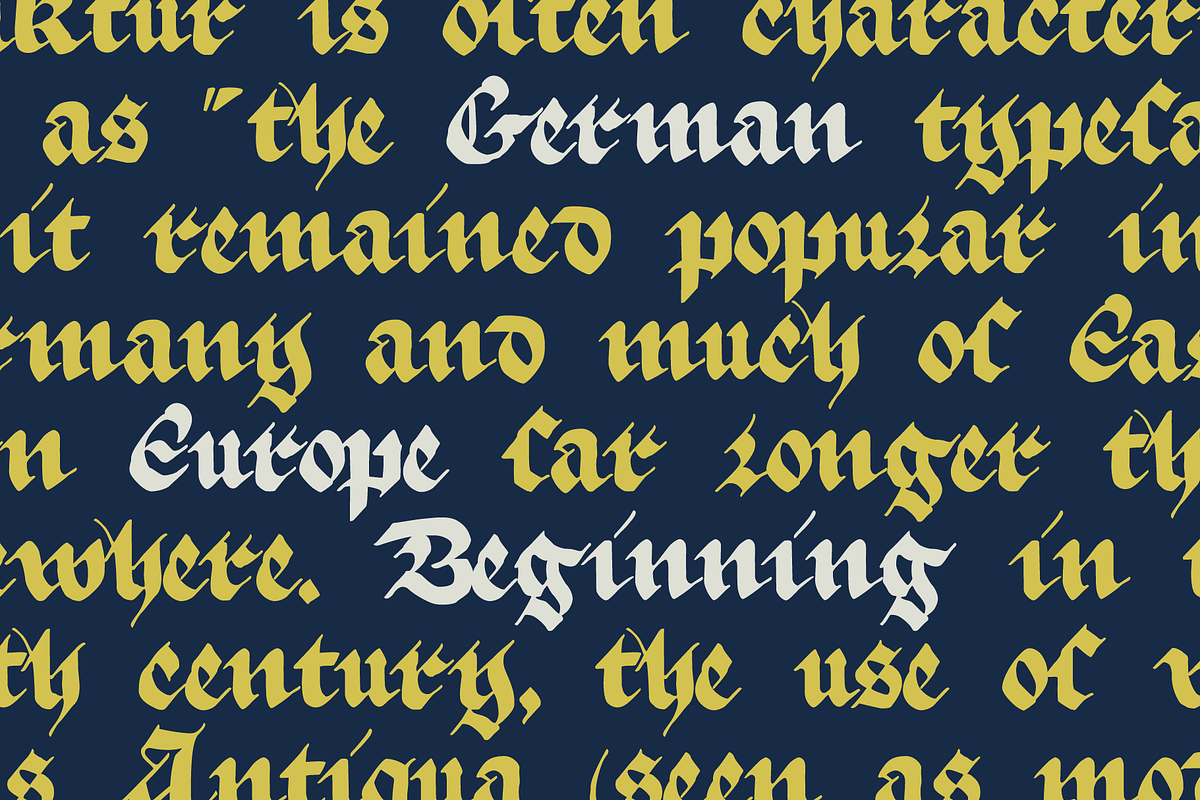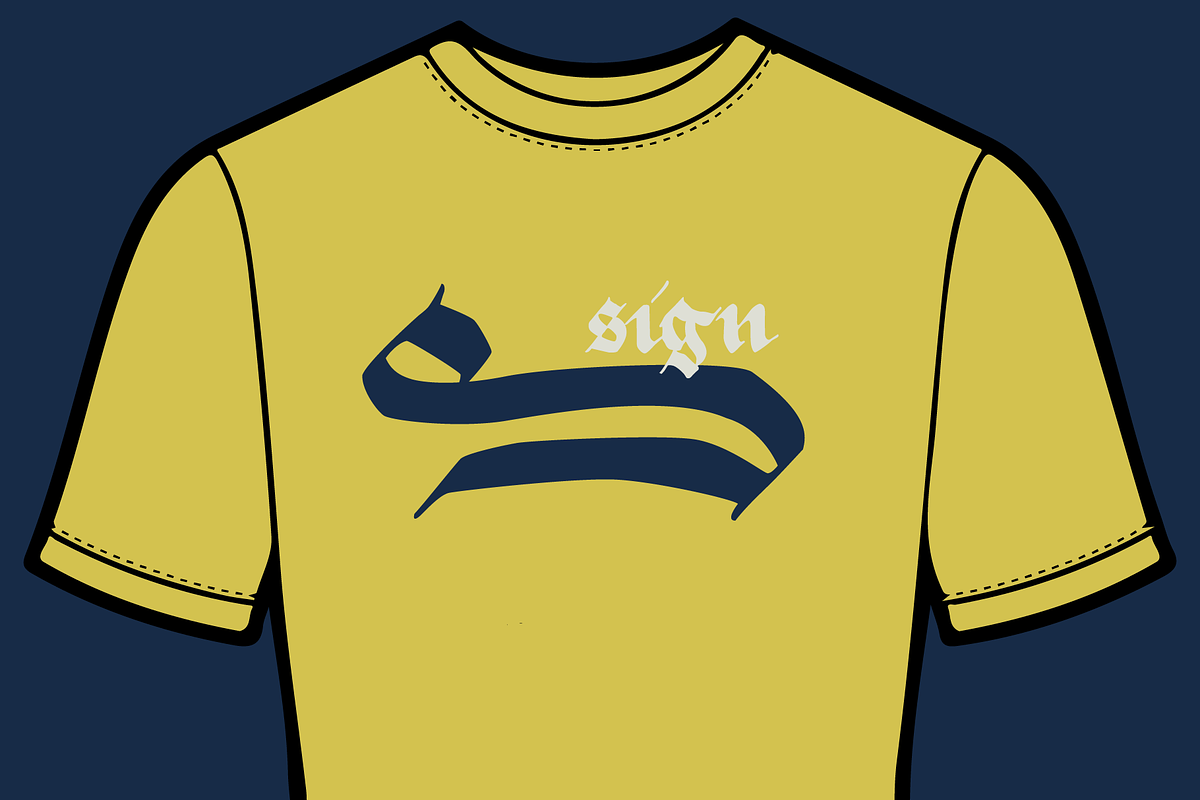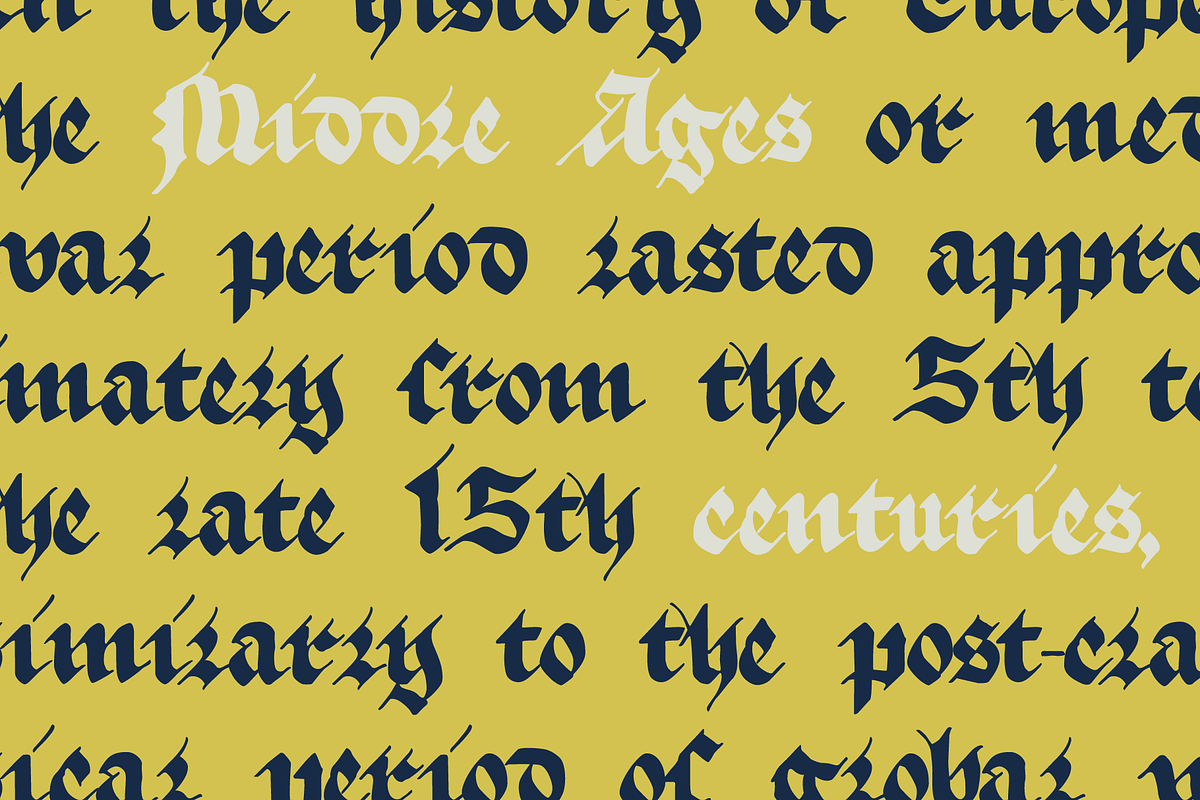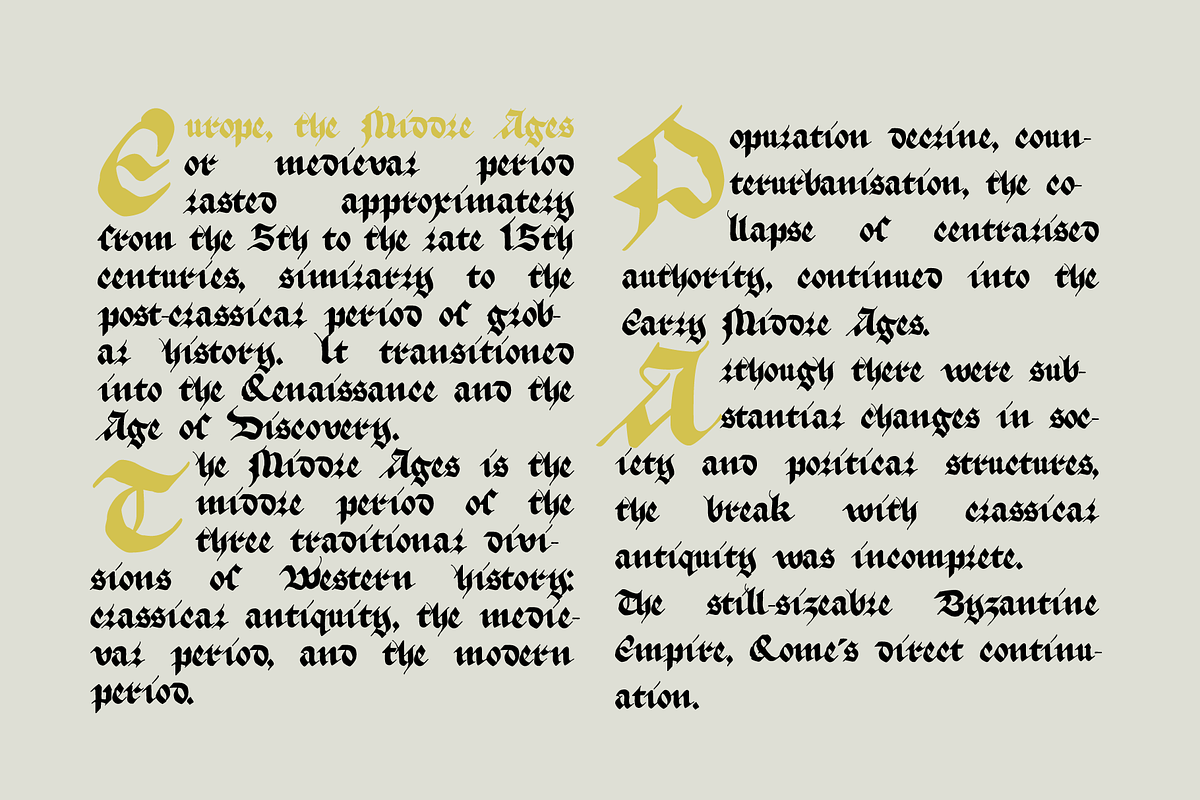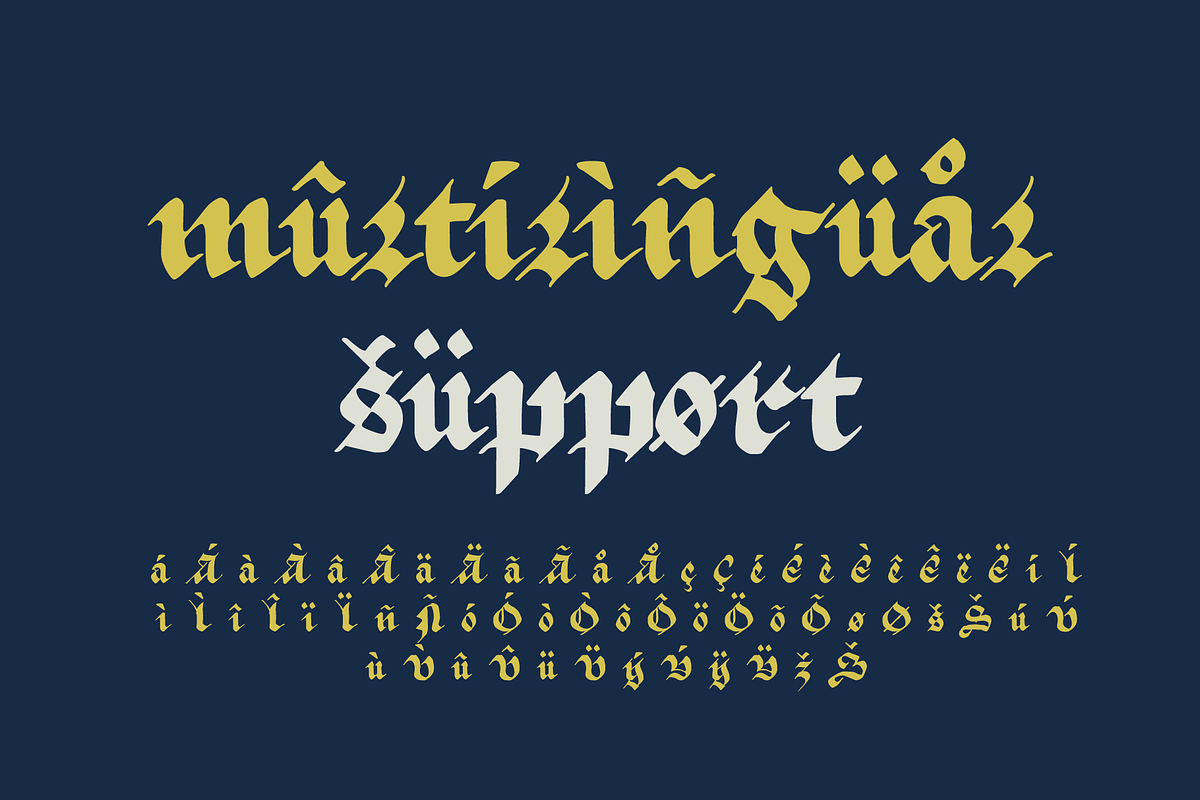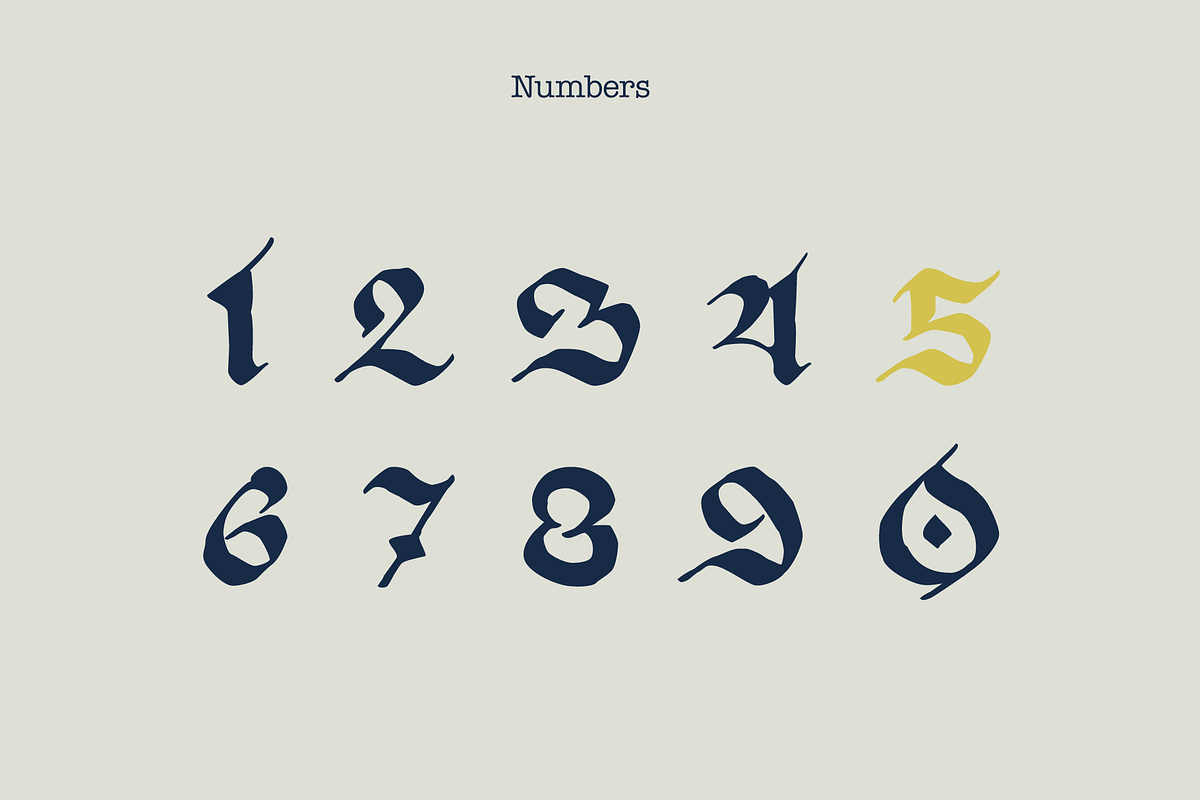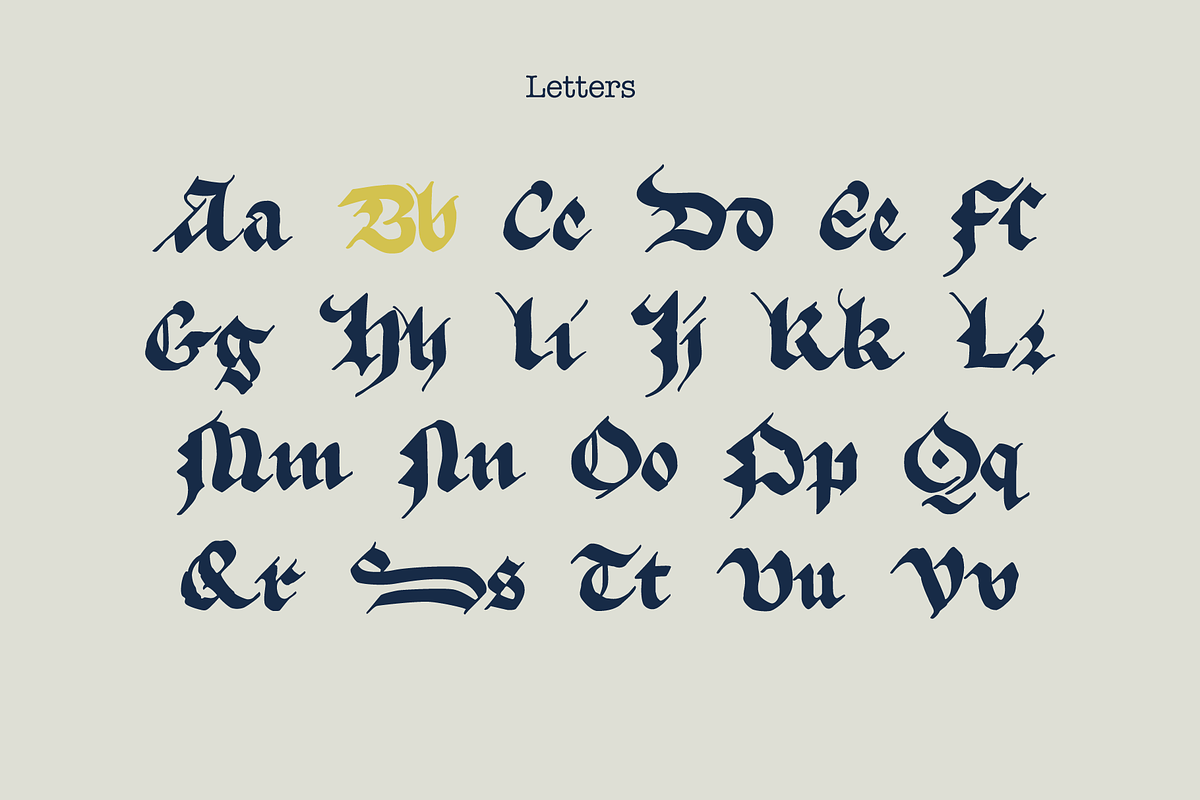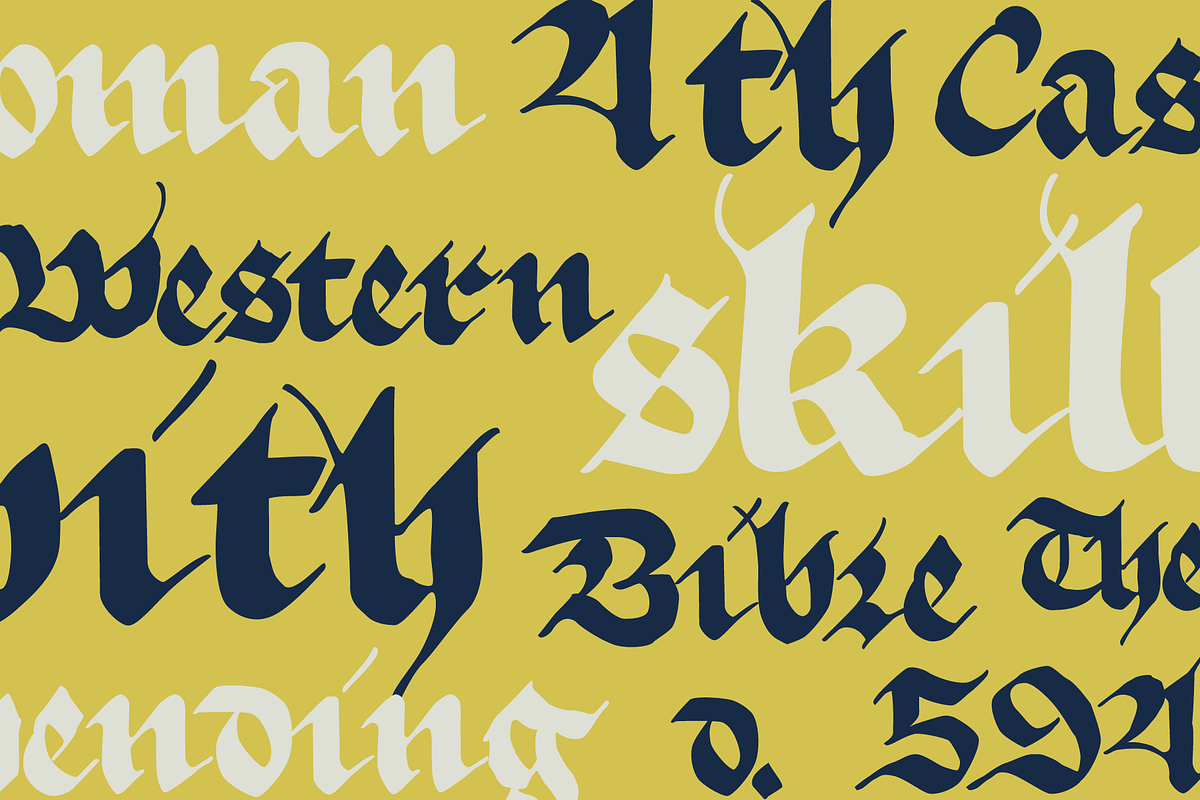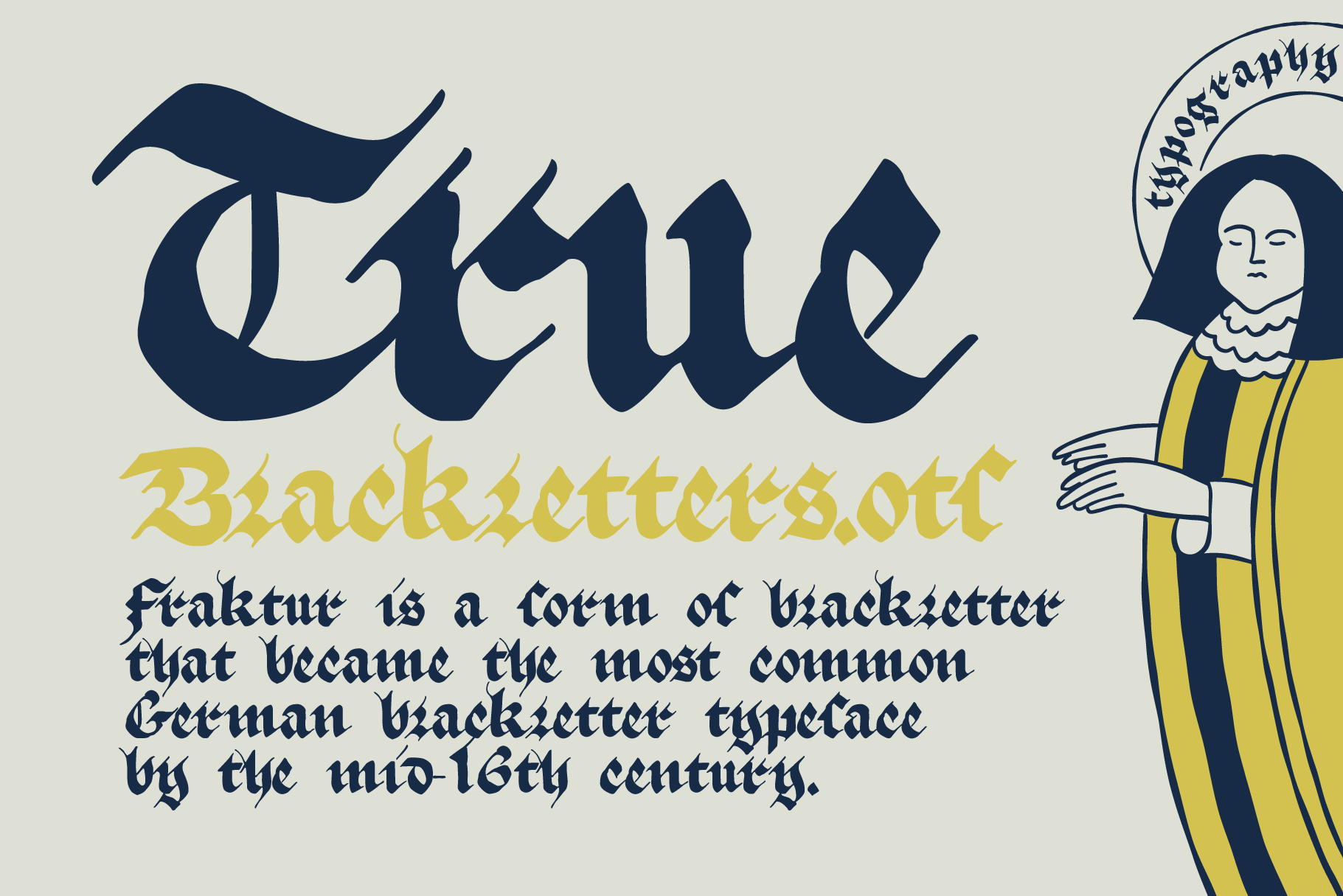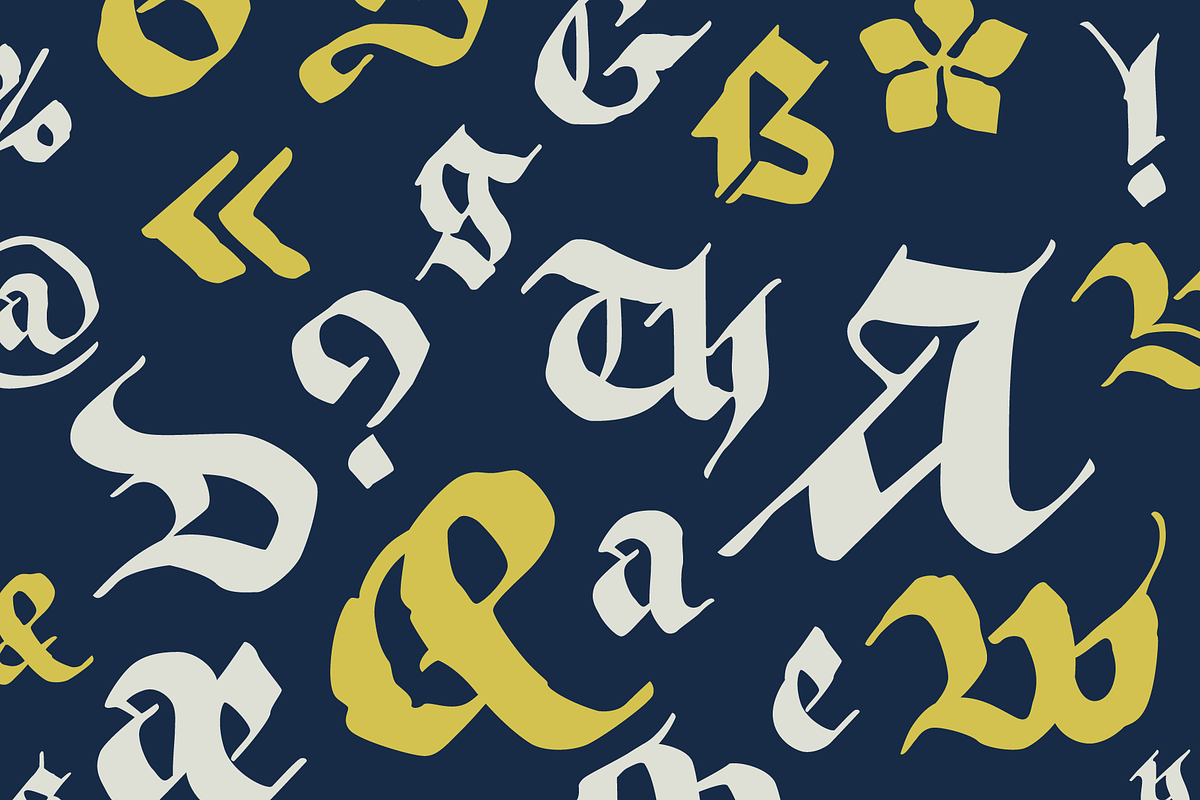
True Blackletters font
This font based on Prayer book. German manuscript of late 15th century belongs to the monastery in Strasbourg. As usual, I’ve added some modern symbols.